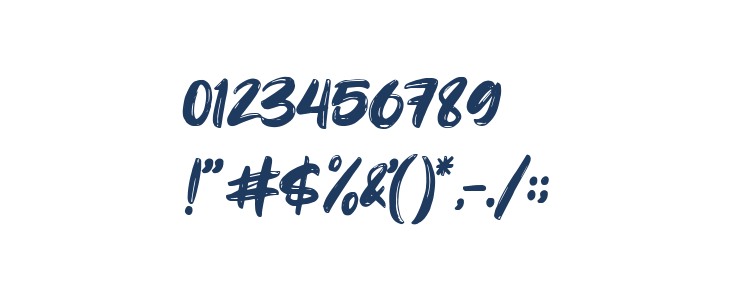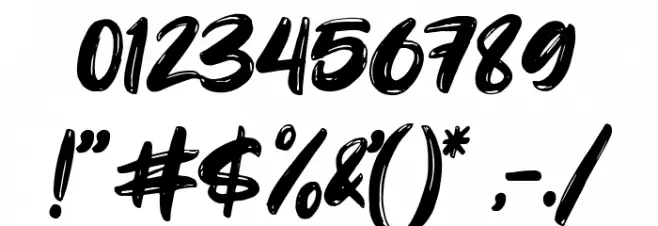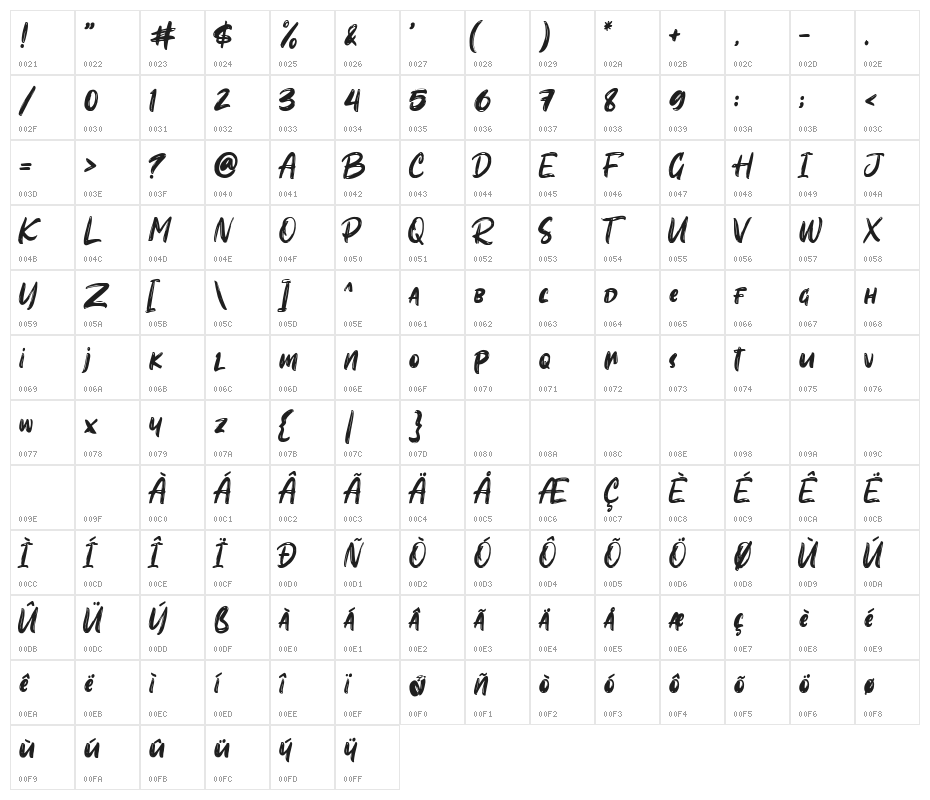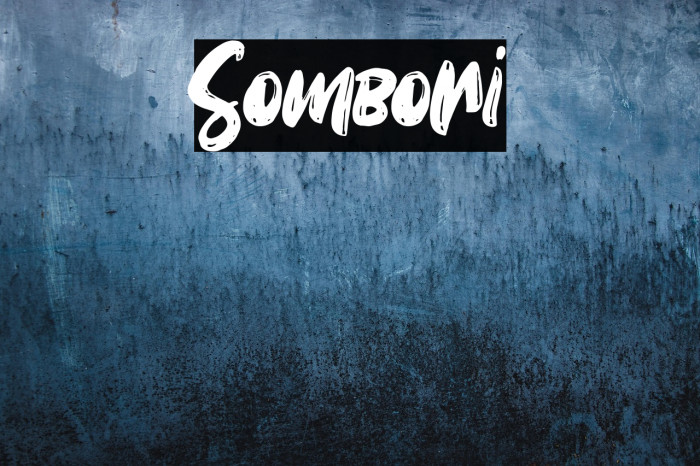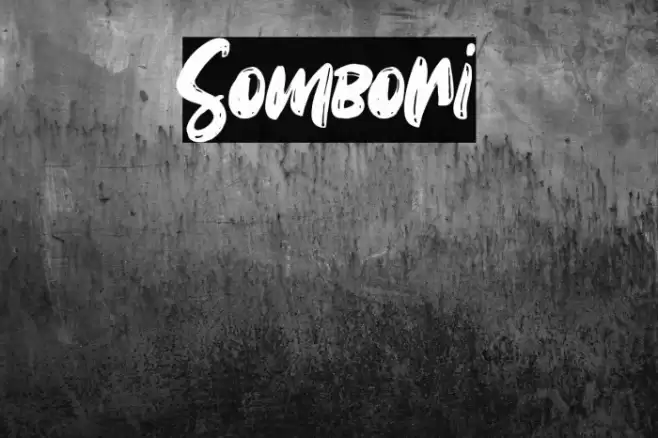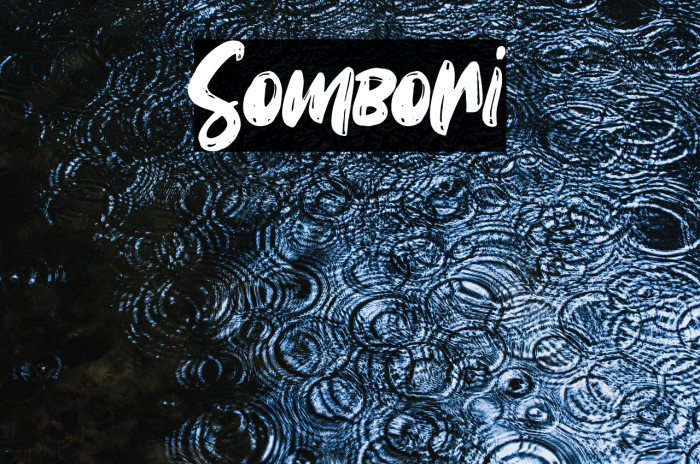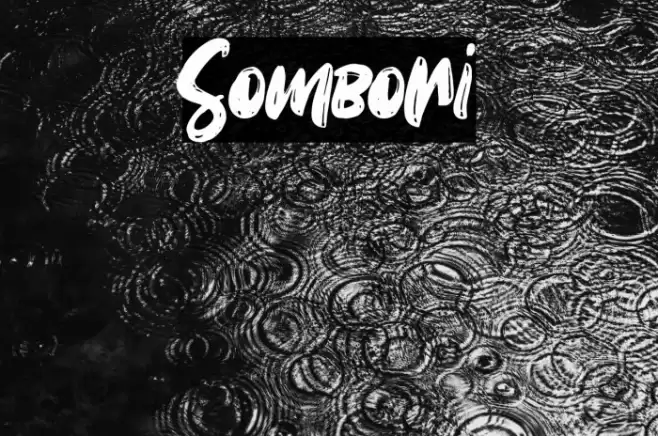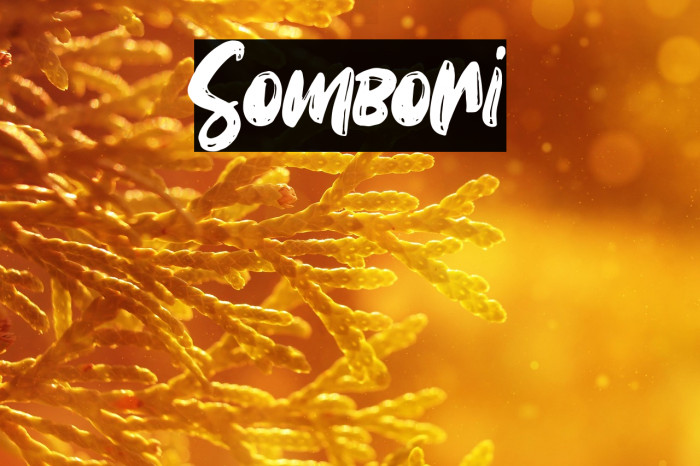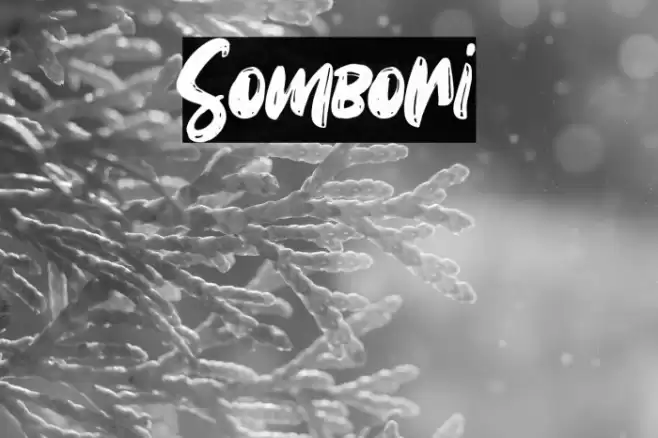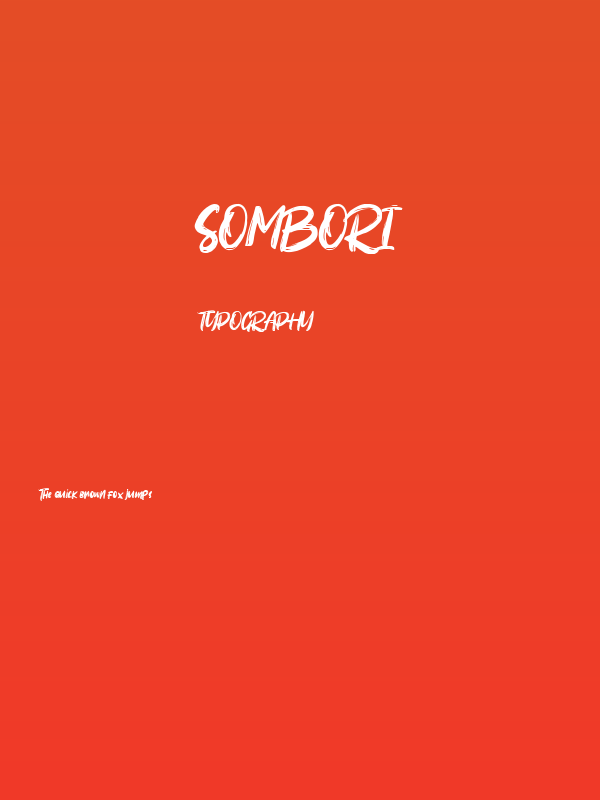
Sombori Font
Sombori Description
This font features a bold and energetic brush script style, characterized by its dynamic and fluid strokes. The letters have a hand-painted appearance, with varying thickness that adds a sense of movement and spontaneity. The uppercase and lowercase letters are distinct yet harmonious, maintaining a consistent style throughout. Numbers and special characters are crafted with the same lively flair, making the font versatile for creative projects. Its artistic and informal nature makes it suitable for designs that require a personal touch, such as invitations, posters, and branding materials.
| Proposed Projects | Ideal for invitations, posters, branding, and any project needing a personal, artistic touch. |